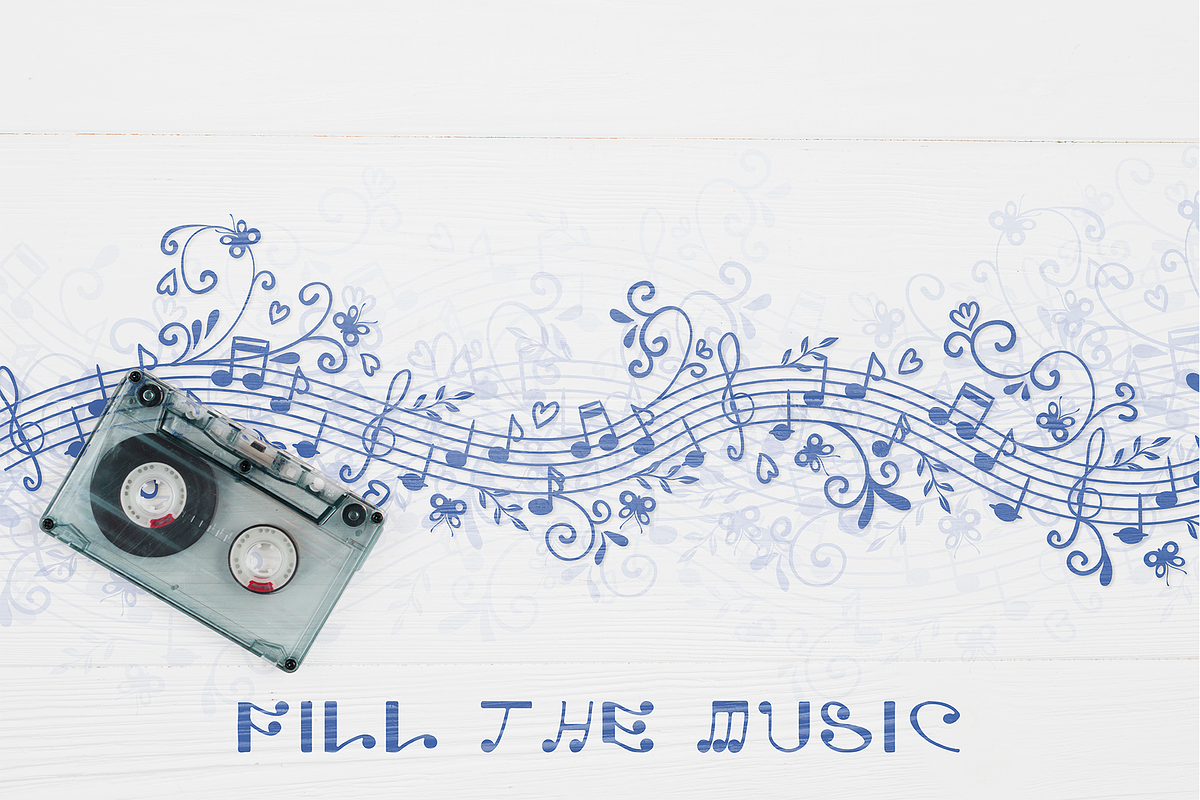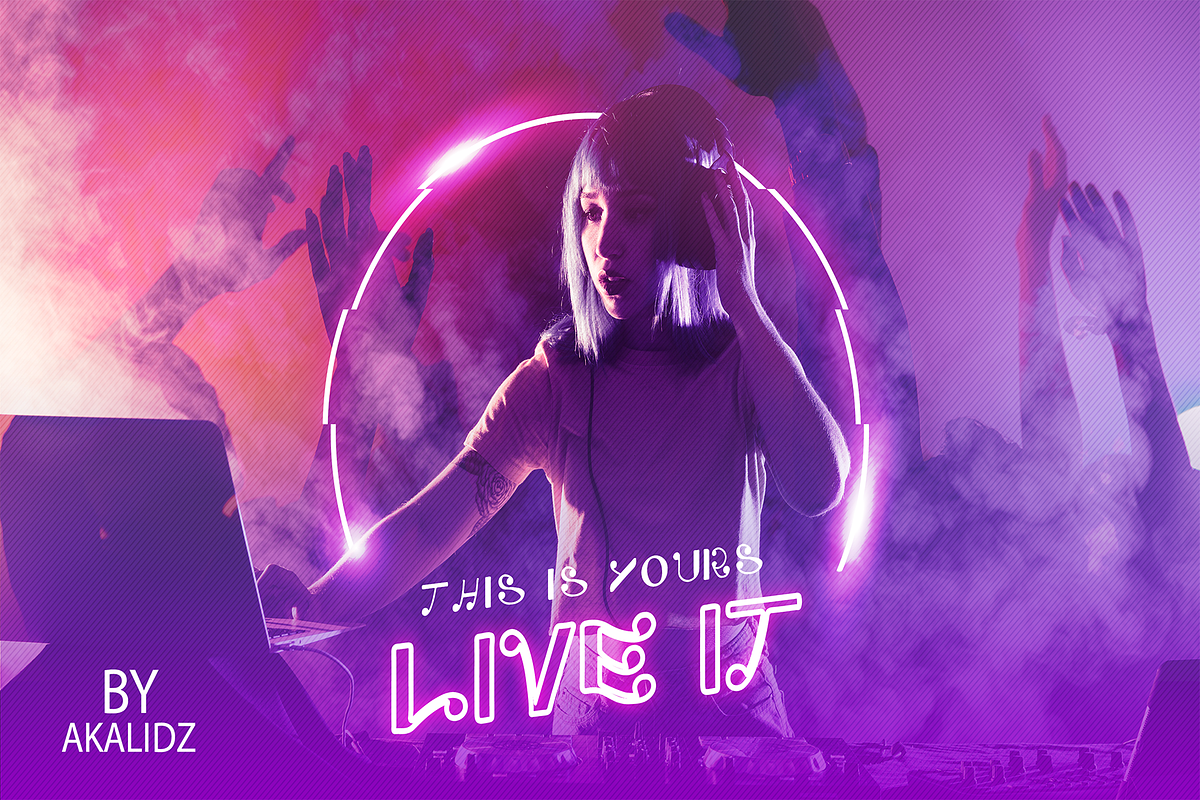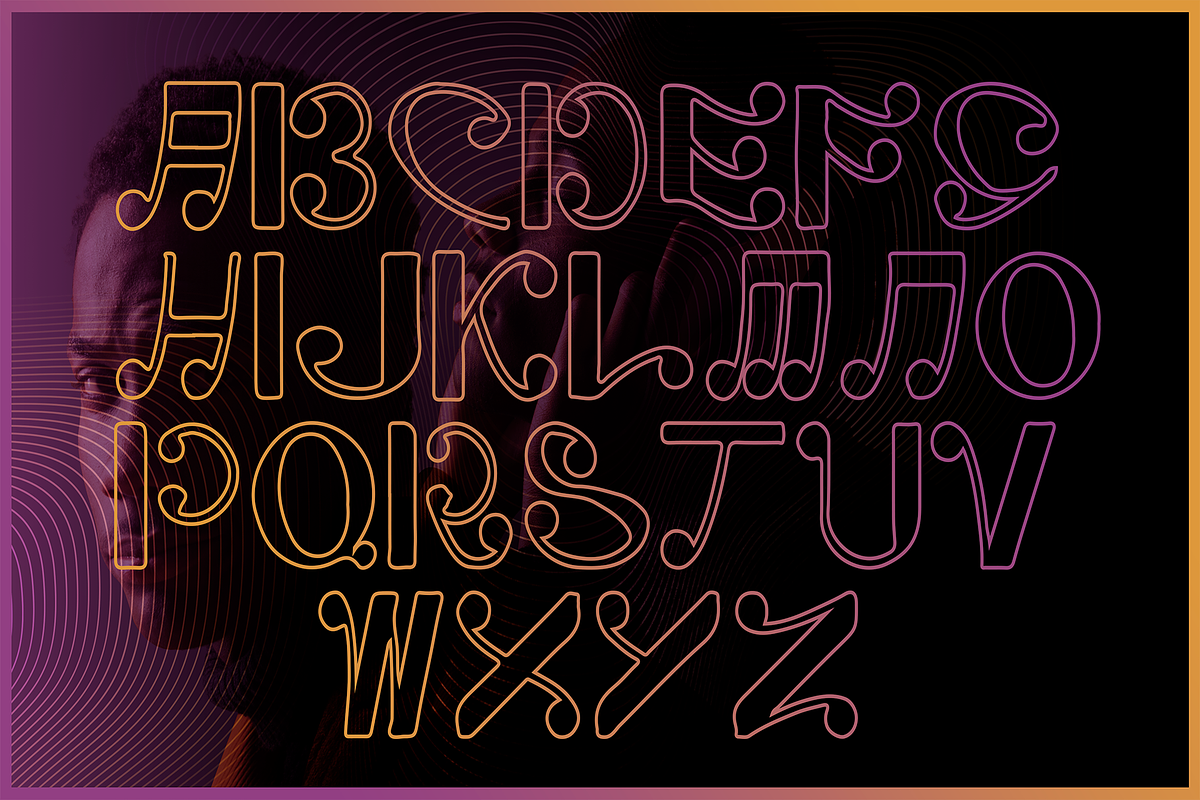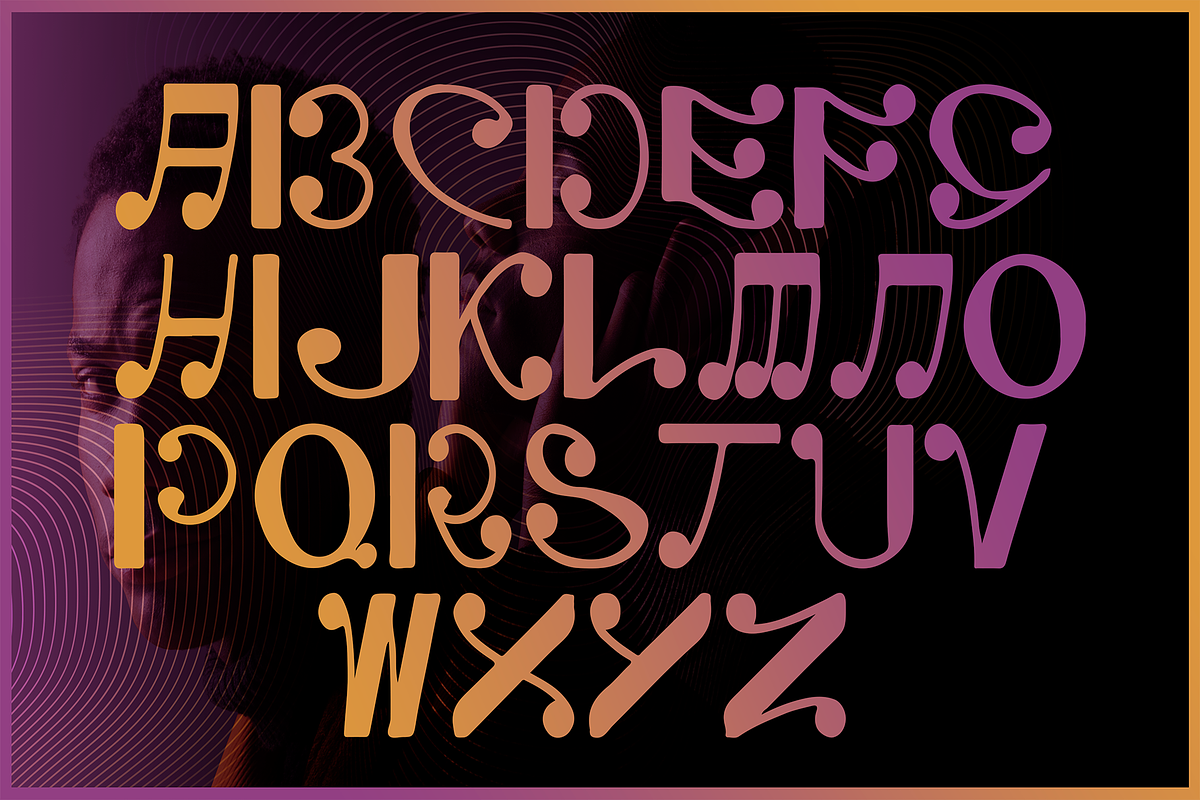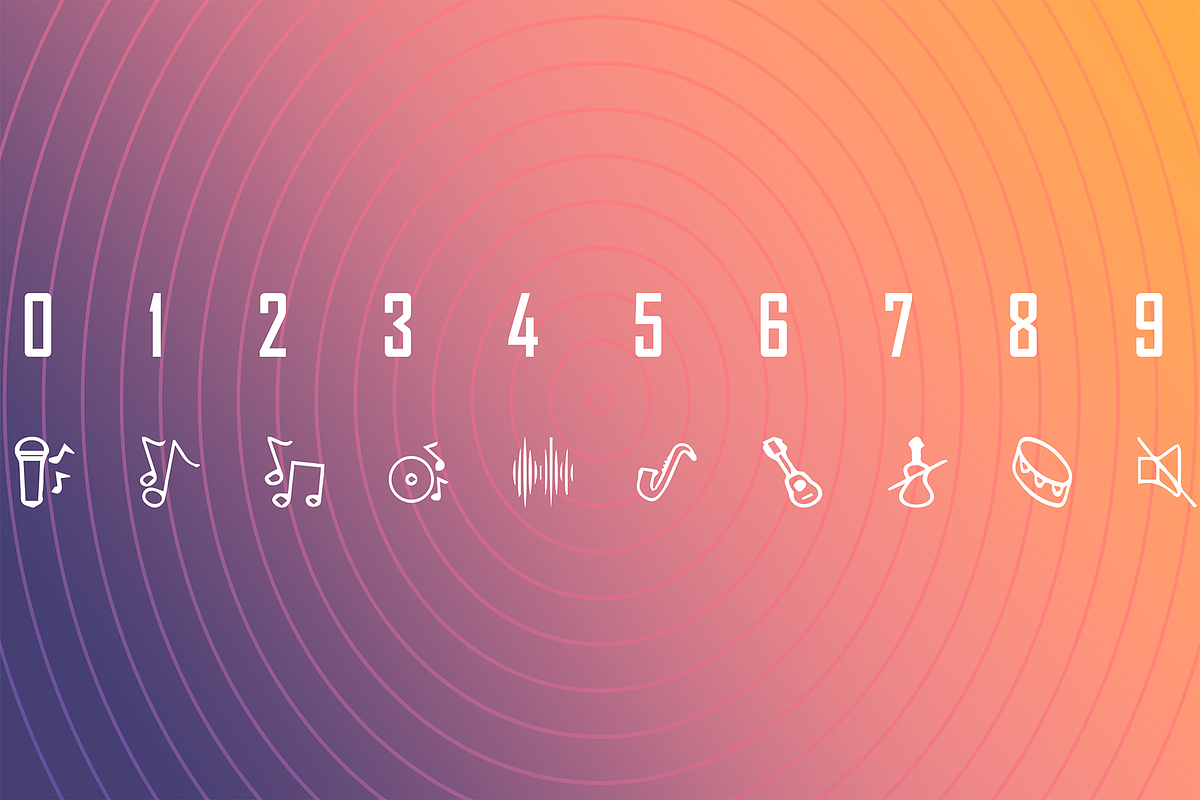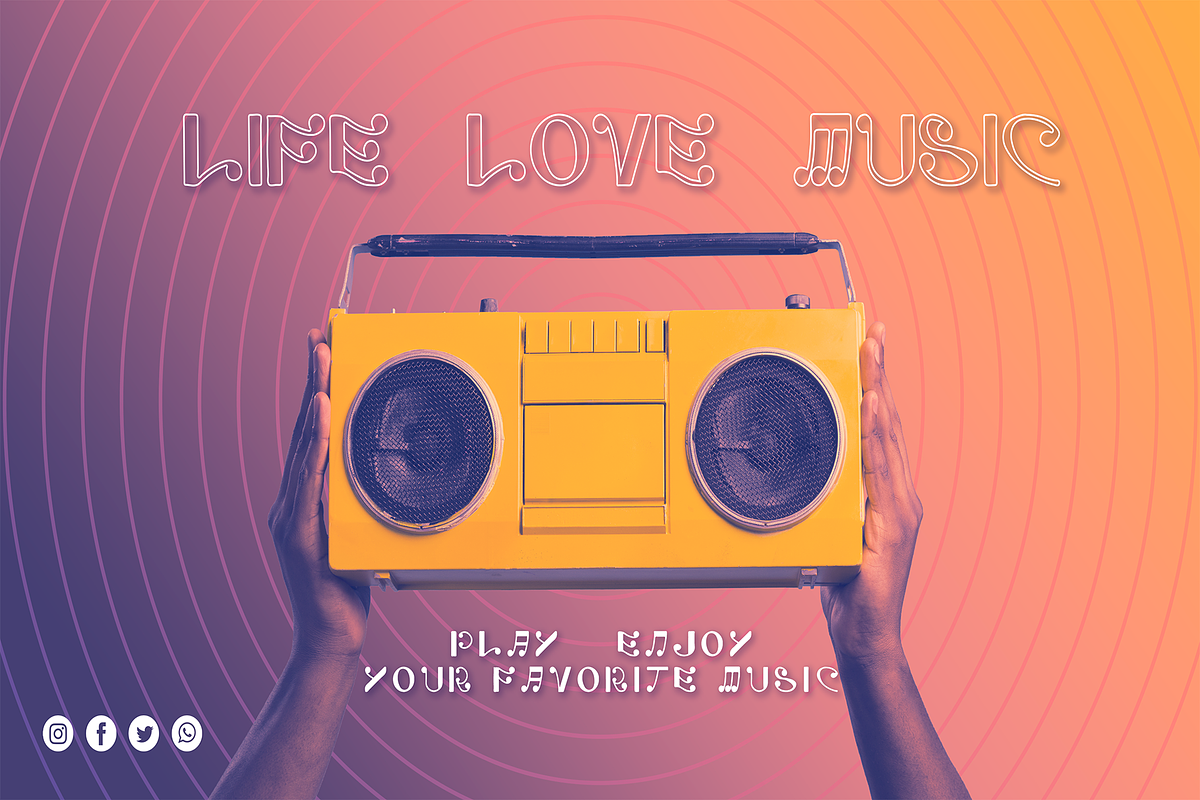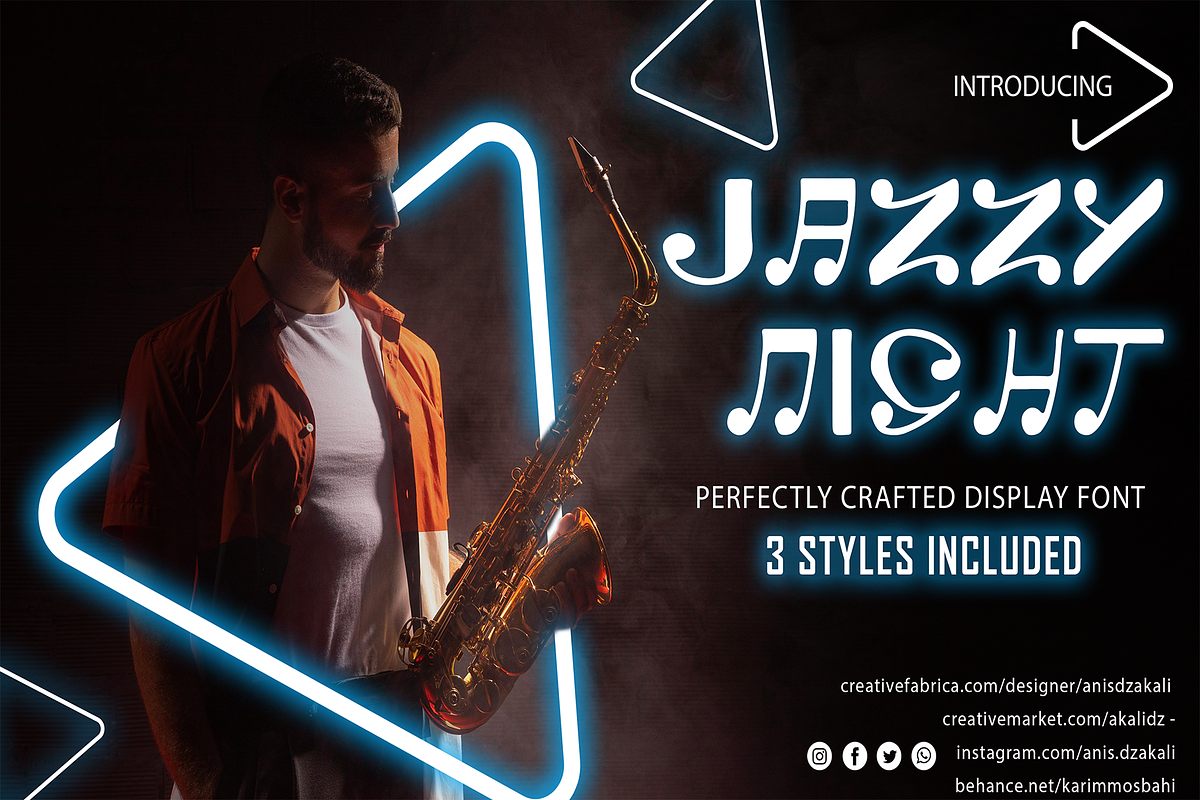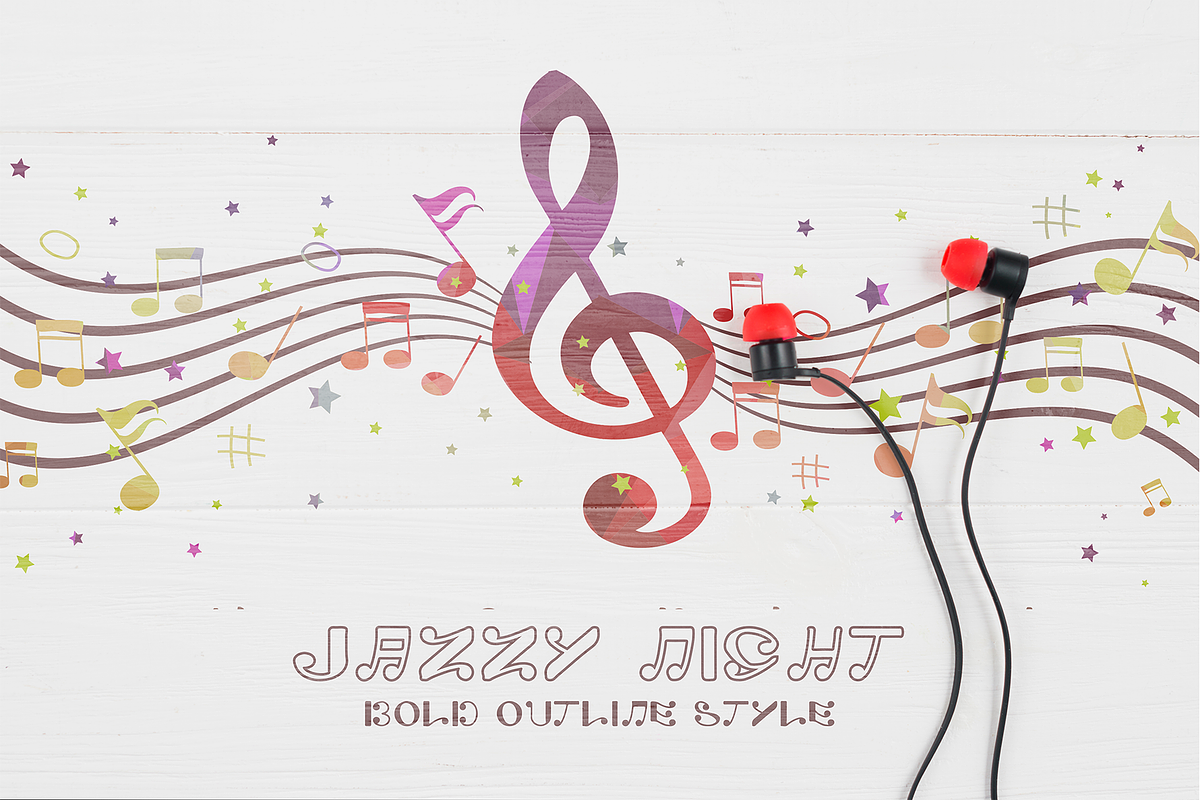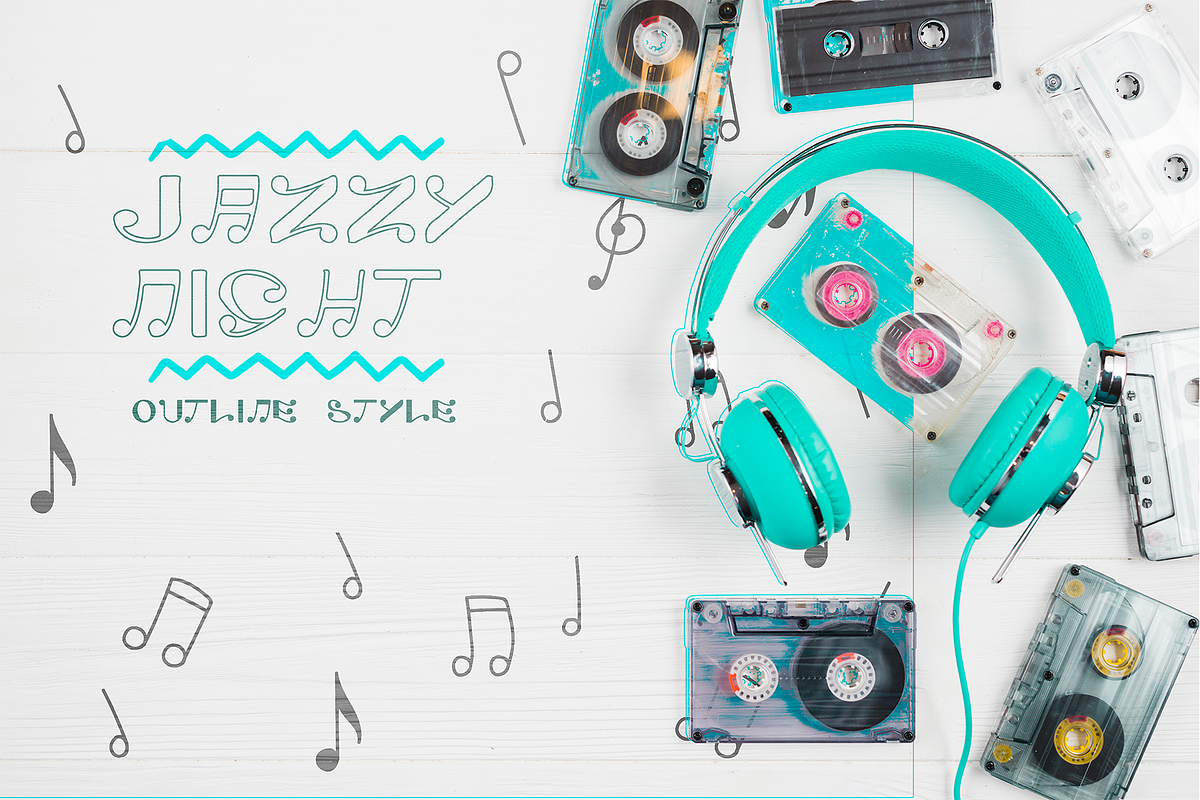
JAZZY NIGHT
JAZZY NIGHT is an incredibly cool decorative font, featuring characters that resemble MUSICAL NOTES. It will elevate a wide range of crafting ideas, from cards, to branding, labels and much more.